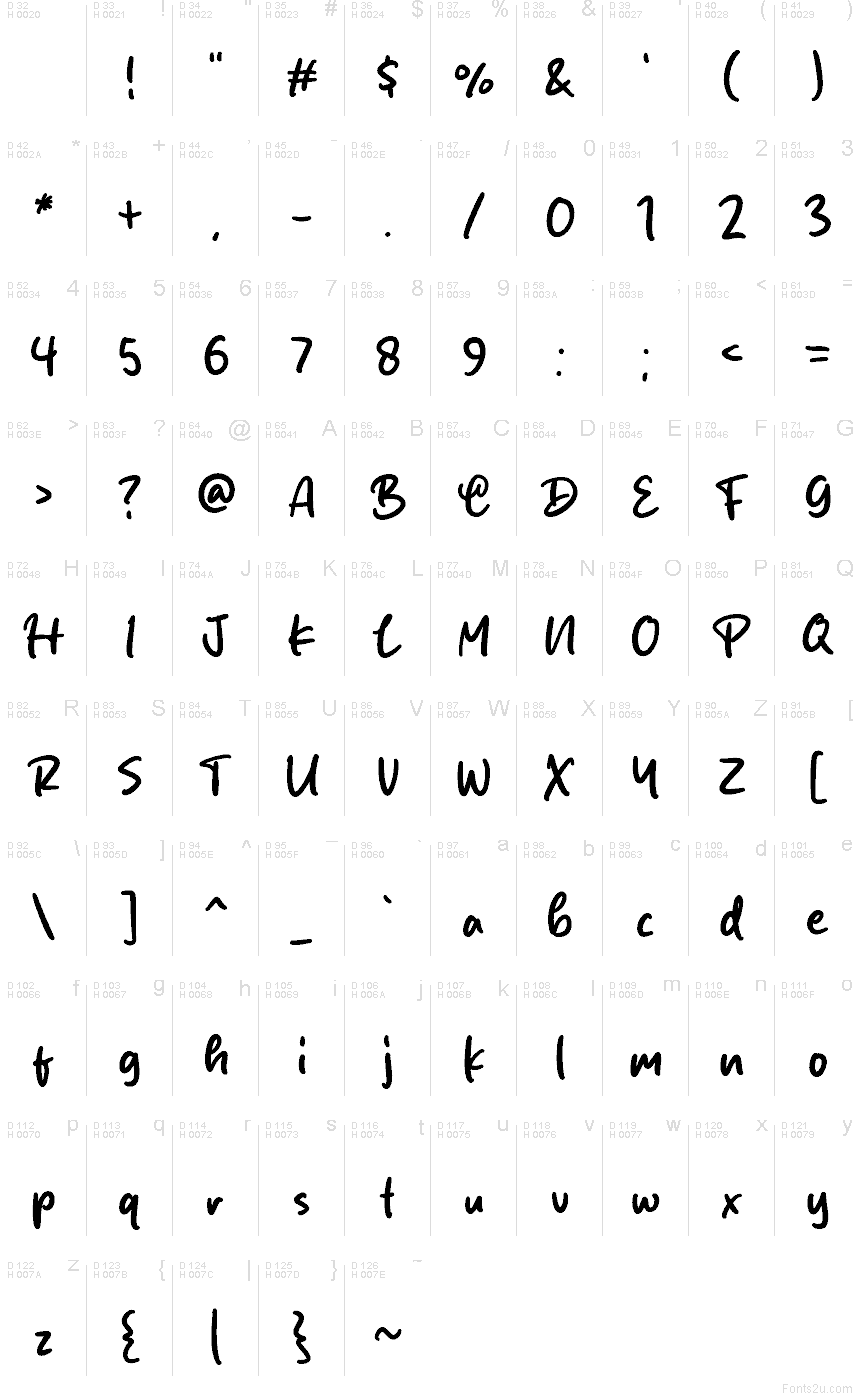
Burger Steak
Burger Steak font by Origin Type is a free handwritten font with a juicy, marker-brush energy that feels straight off a chalkboard menu. The strokes are bold, rounded, and slightly uneven in the best way, like fresh ink dragged quickly across paper, giving it a warm, casual personality. It’s friendly without being childish and has enough weight to stay readable even at smaller sizes.
Using Burger Steak, you can instantly add a handcrafted vibe to food branding, menu designs, café signage, product packaging, social media graphics, and playful posters. This free font shines on hero headlines, while pairing it with a clean sans-serif for body text keeps everything grounded and easy to scan. Scale it up for logos and title treatments where you want that thick, inky texture to really stand out.